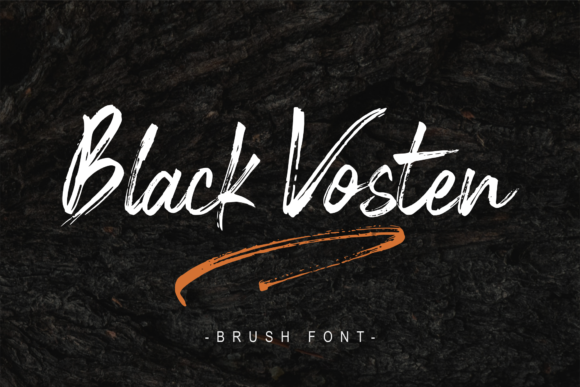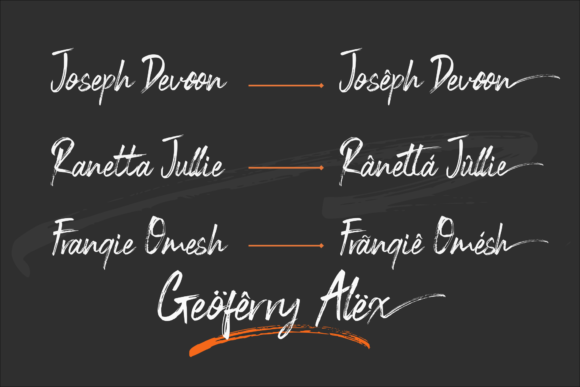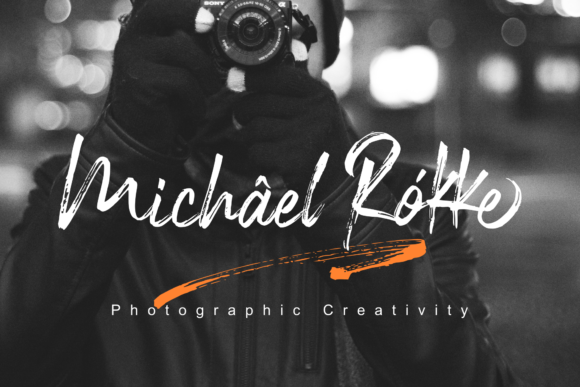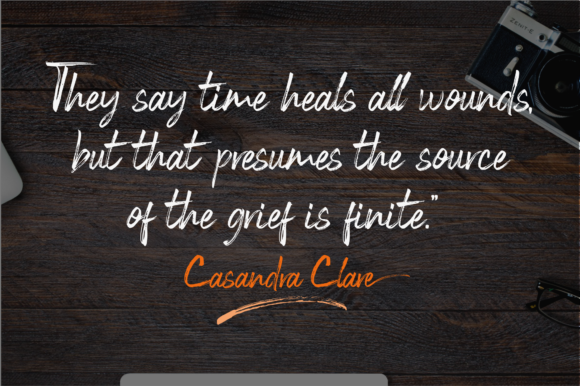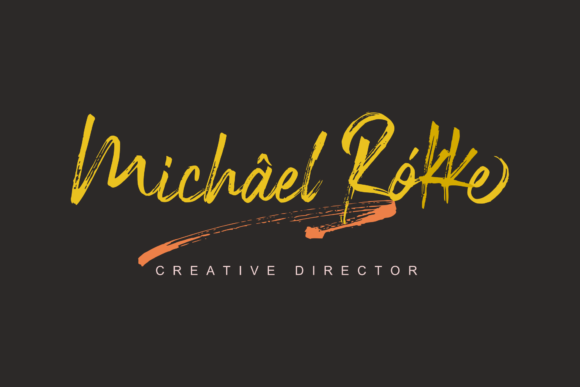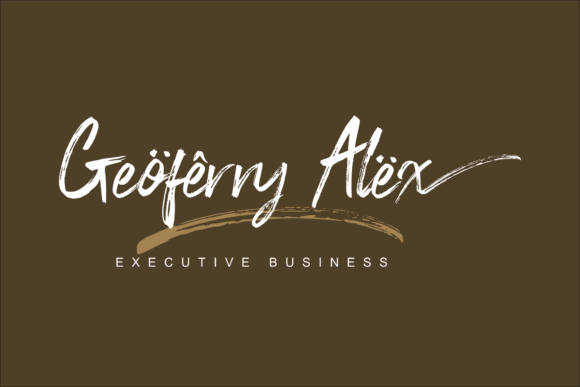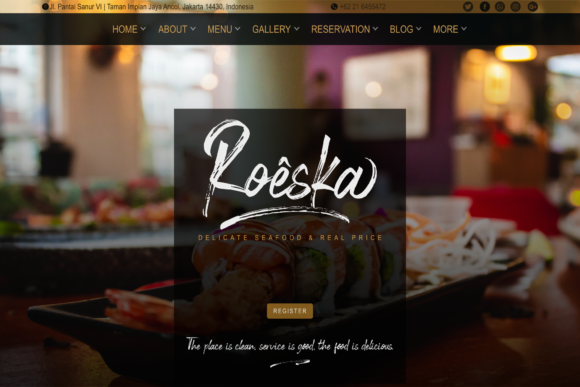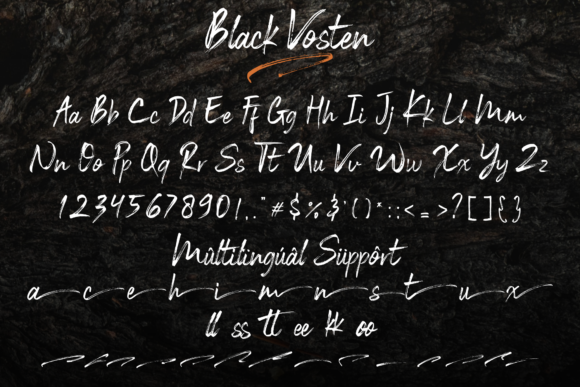
Black Vosten Font
About Black Vosten Font
Black Vosten is a dark, yet fun handwritten font with a bold feel. Get inspired by its unique charm, and turn any design project into a true standout!